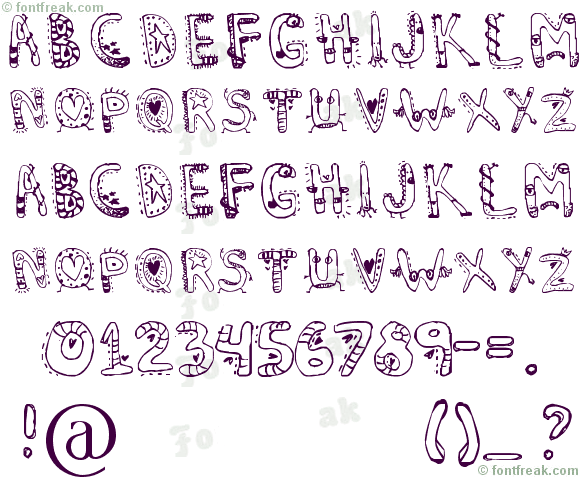
Denne's Aliens
About Denne's Aliens
Denne's Aliens font by Denise Bentulan is a whimsical display typeface that brings a playful and imaginative flair to any project. Released in 2009, this freeware font captures attention with its unique letterforms that appear as if they have been hand-drawn, providing a charming, organic feel. The strokes are varied in weight, combining thicker and thinner lines that create a delightful contrast, while the spacing between characters is designed to maintain legibility without sacrificing personality. The decorative elements, including playful shapes and quirky accents, give each letter a distinctive character, making it ideal for creative applications.
Best suited for projects that require a touch of fun and creativity, Denne's Aliens font shines in children's book covers, playful branding for toy stores, and eye-catching posters for events or festivals. It can also elevate restaurant menus that aim for a casual and inviting atmosphere, as well as invitations for birthday parties or other celebrations where a joyful theme is desired. The font appeals to a diverse target audience, including graphic designers looking to inject creativity into their designs, small business owners wanting to stand out in their branding, and content creators seeking to add a unique touch to their visual content.
What truly sets Denne's Aliens apart is its ability to evoke a sense of wonder and imagination, making it not just a typeface but a storytelling tool. Its playful nature can transform ordinary text into an engaging visual experience, inviting audiences to explore and enjoy the message being conveyed. Whether you are designing for children or creating a fun, lighthearted aesthetic, this font is a fantastic choice. Don't miss out on the opportunity to enhance your project with this delightful typeface; you can find the Denne's Aliens font free download available now.